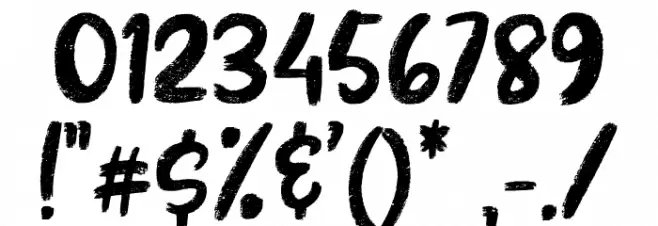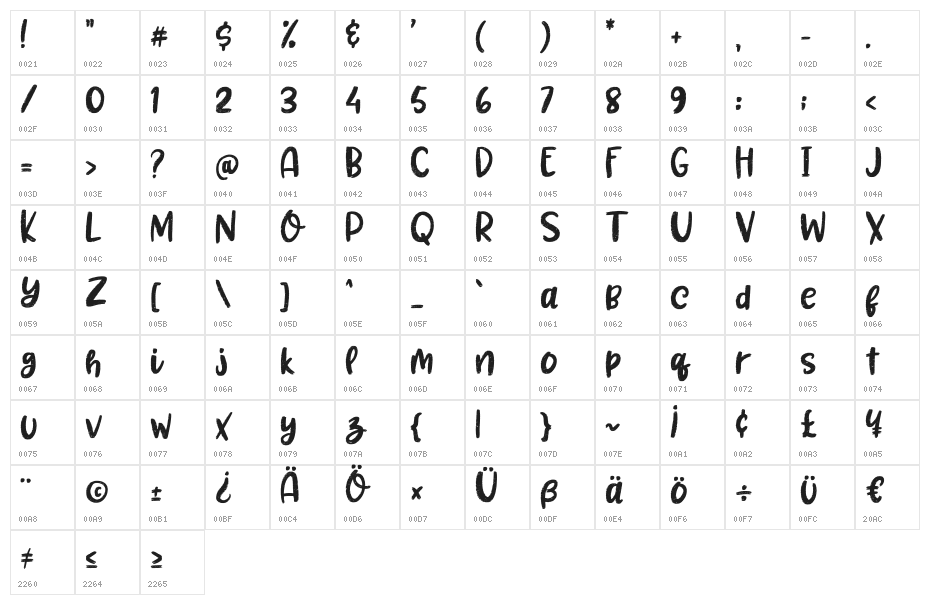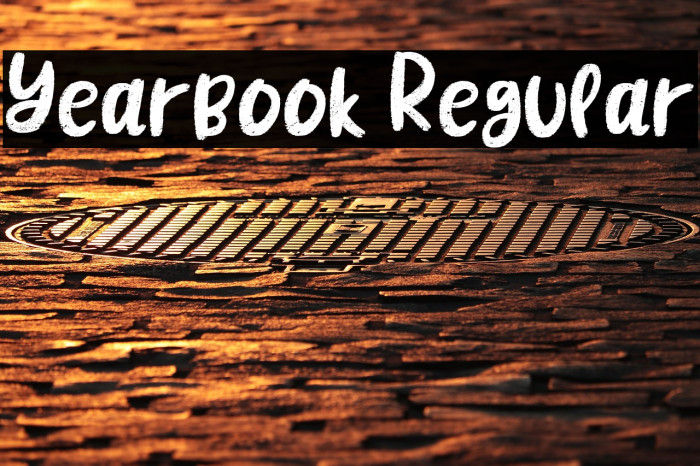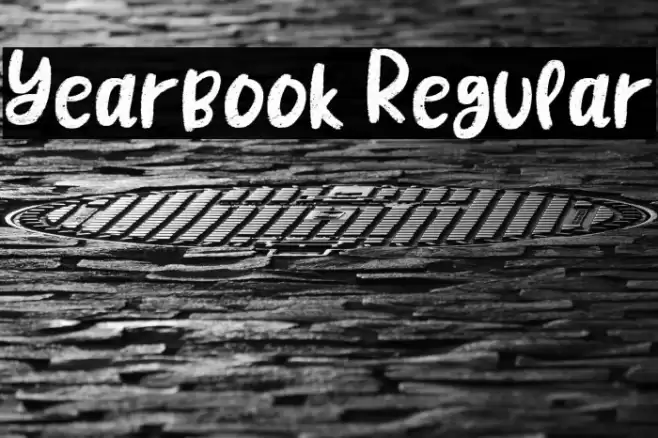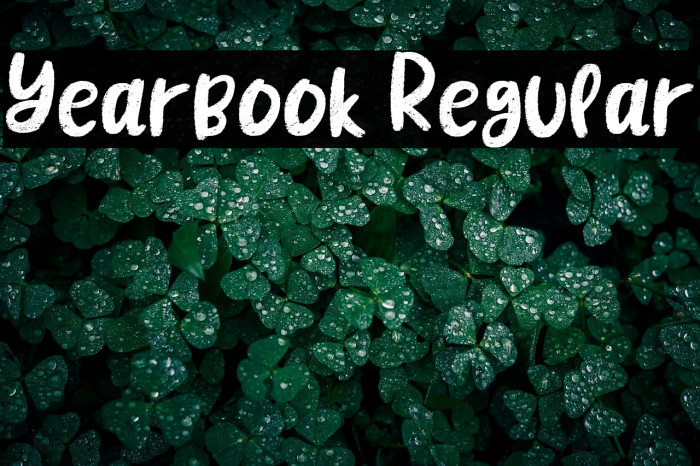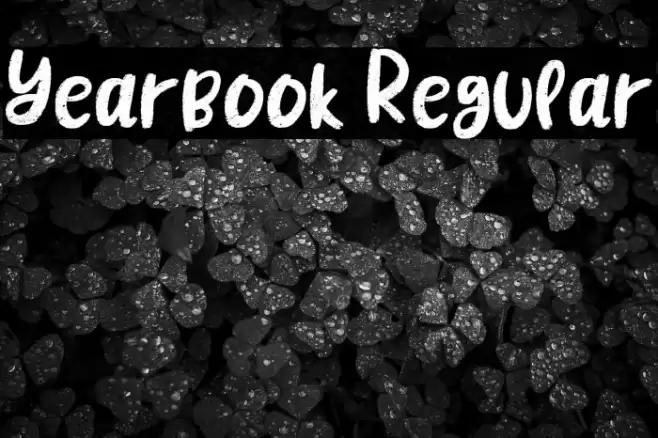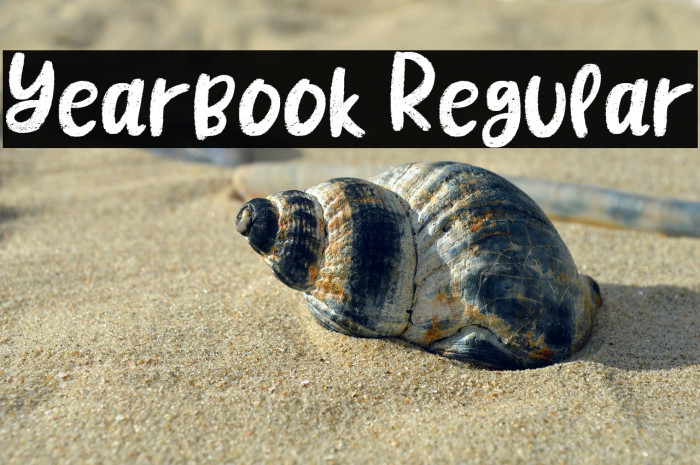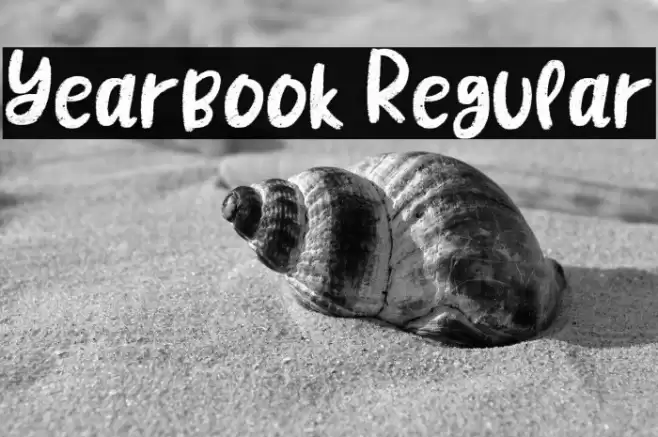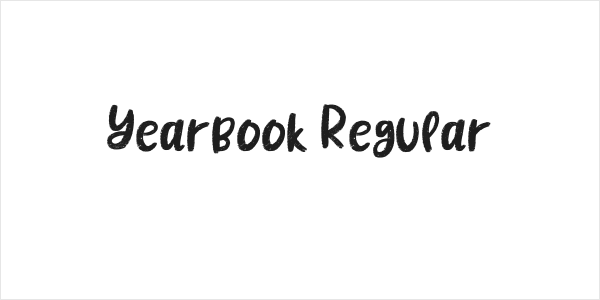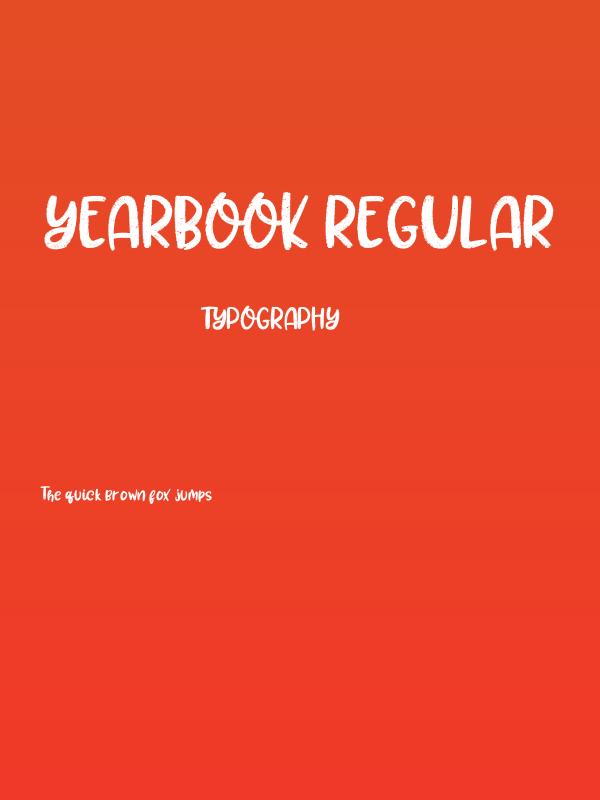
Yearbook Regular Font
Yearbook Regular Description
This font features a bold, handwritten style with a playful and energetic appearance. The letters are slightly irregular, giving it a casual and informal feel. The strokes are thick and textured, resembling brush strokes, which adds a dynamic and artistic touch. The uppercase and lowercase letters maintain a consistent style, while the numerals and special characters complement the overall design. This font is ideal for projects that require a personal and creative touch, such as invitations, posters, and branding materials.
| Proposed Projects | Ideal for invitations, posters, branding, and creative projects. |